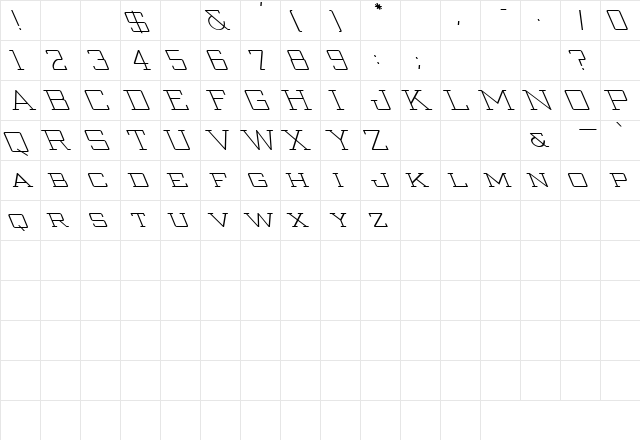
Strongman To The Left Regular
Design Context for Strongman To The Left Typeface
Strongman To The Left is a composed and adaptable typeface that performs quietly and consistently across a wide range of design contexts.